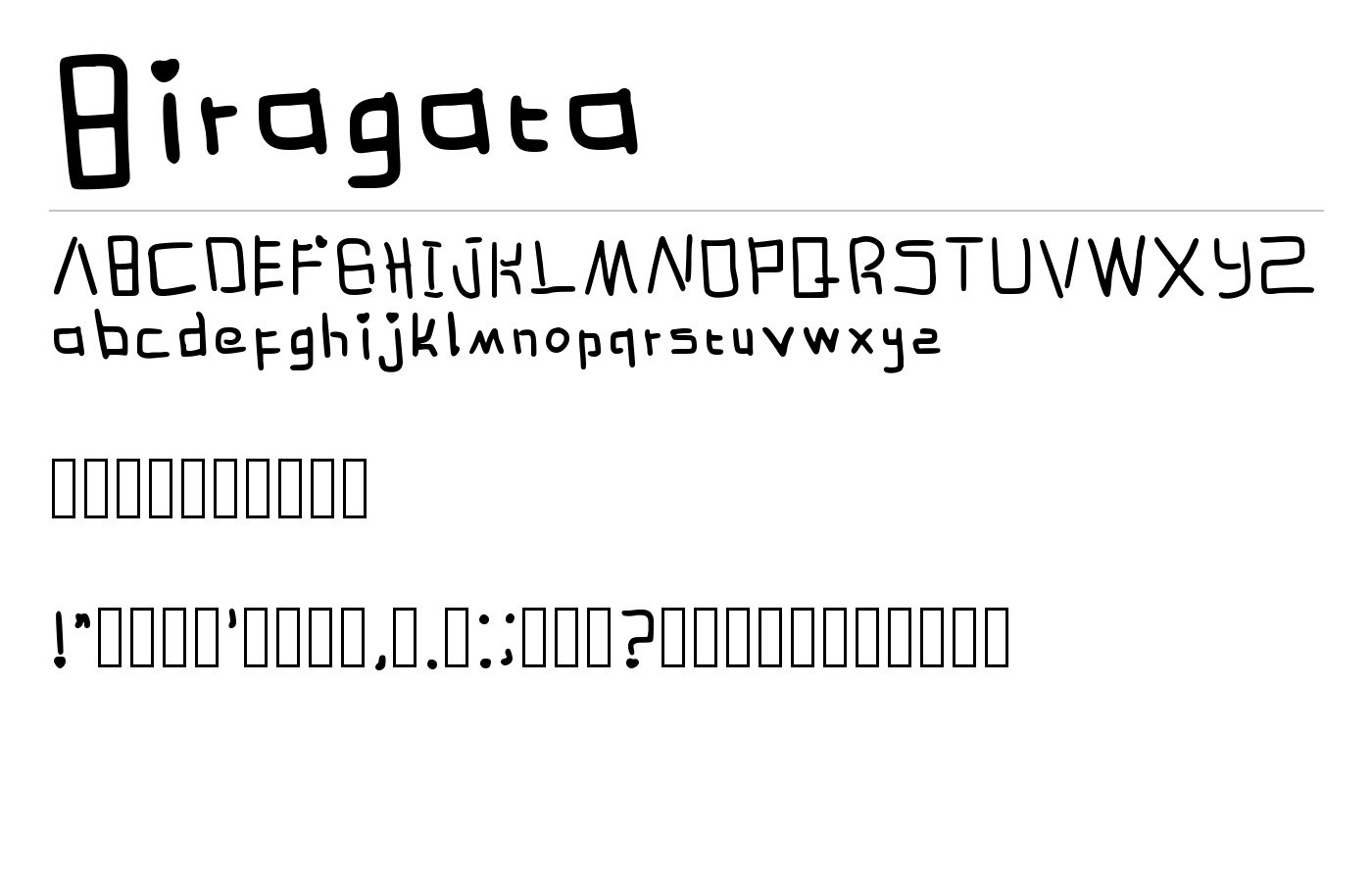
Biragata is a quirky, playful sans serif font with a hand-drawn, casual feel. Its irregular letter shapes and uneven strokes give it a friendly, approachable personality, making it ideal for creative projects, children's materials, and informal branding. This font works best in headlines or decorative text where its unique charm can stand out and add a whimsical touch.
Biragata Font